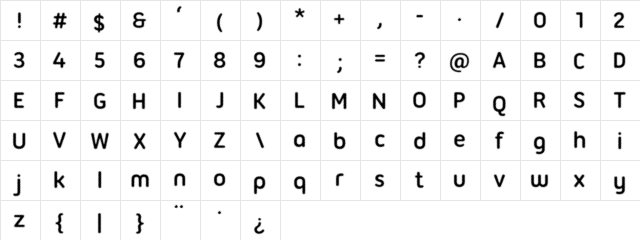
Halftone Font Bold
Design Context for Halftone Font Typeface
Halftone Font offers clean, dependable letterforms without strong stylistic allegiance, making it a practical choice for designers who need flexibility. The heavy weight commands attention and anchors typographic hierarchies.